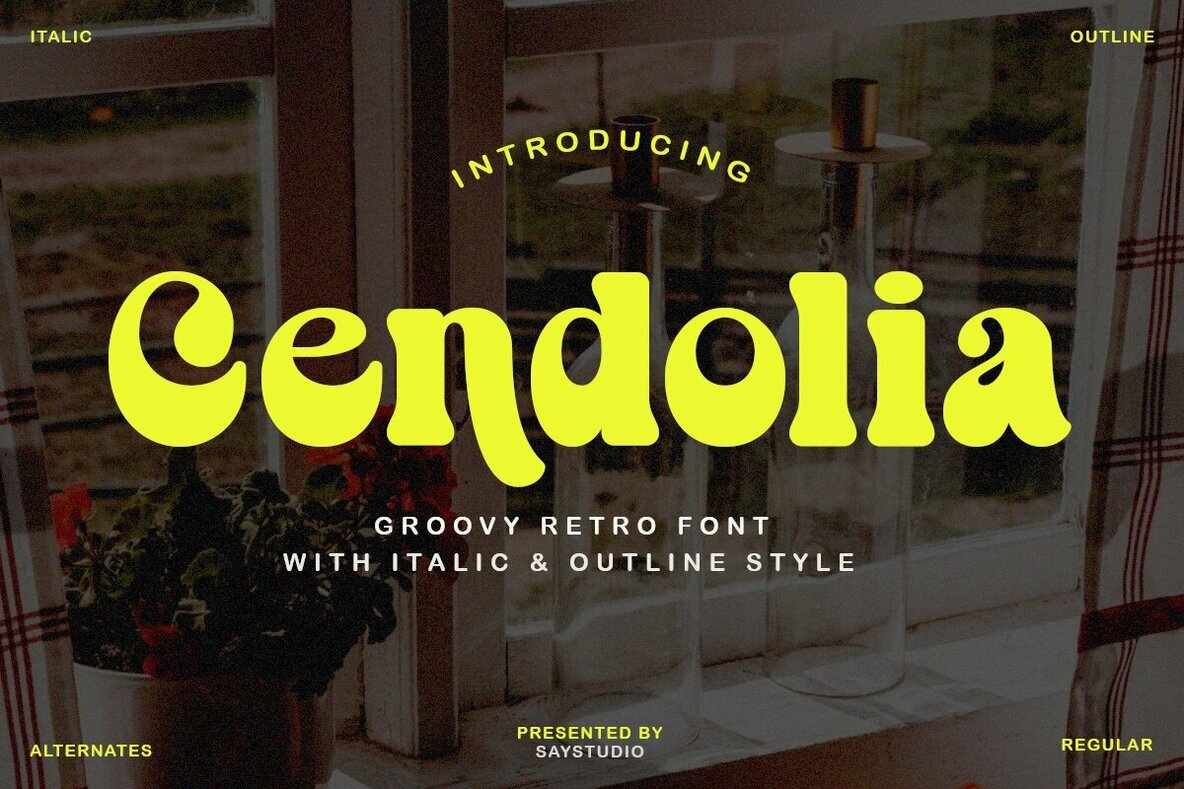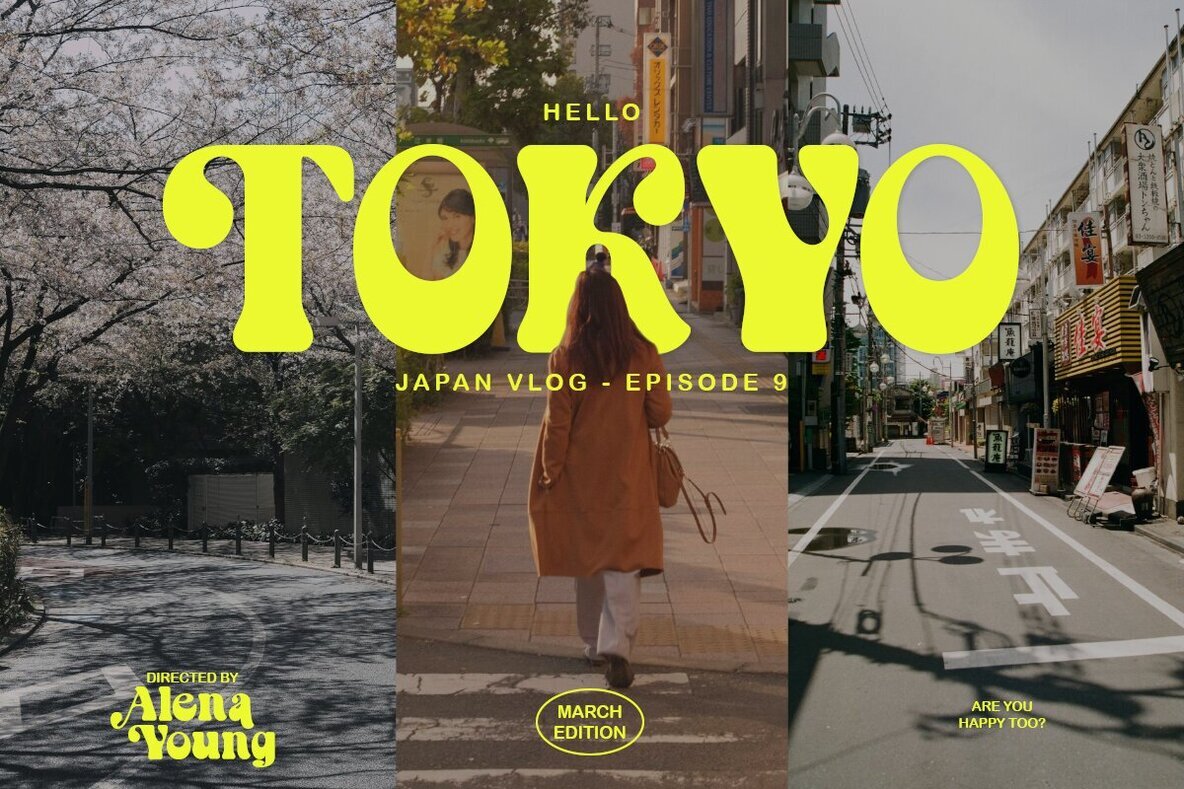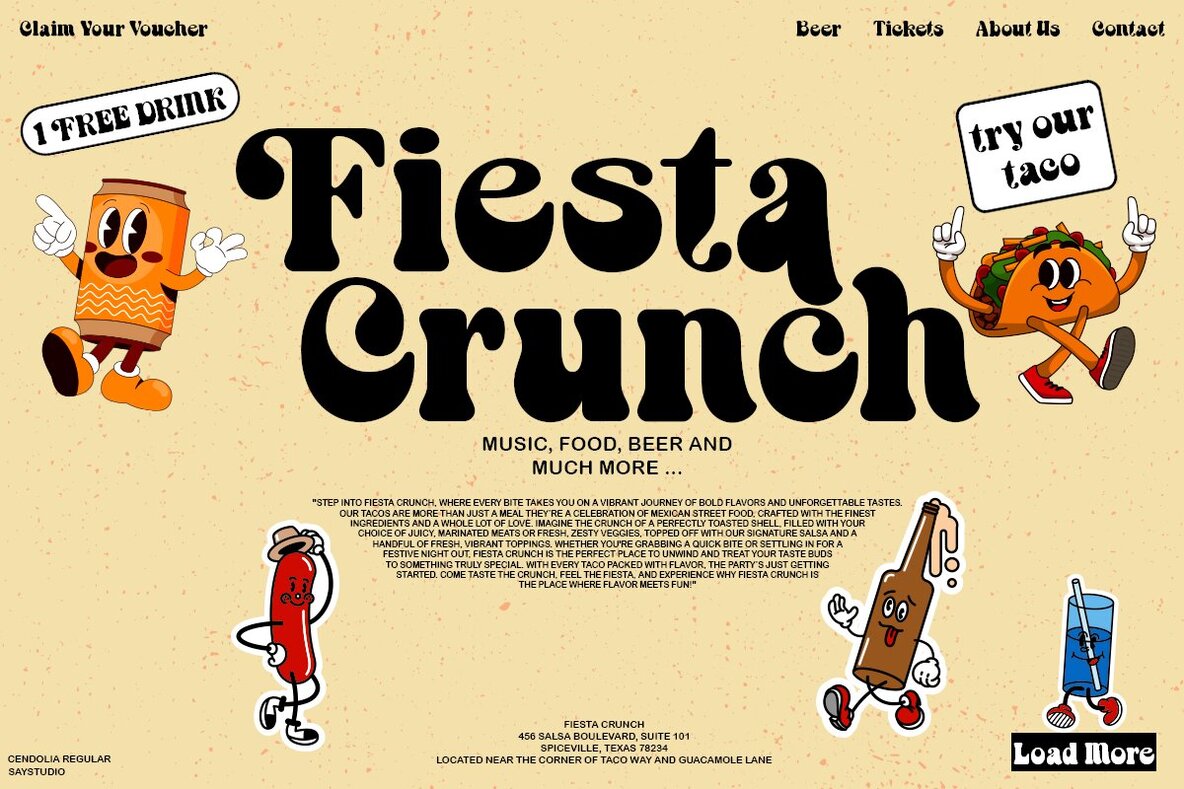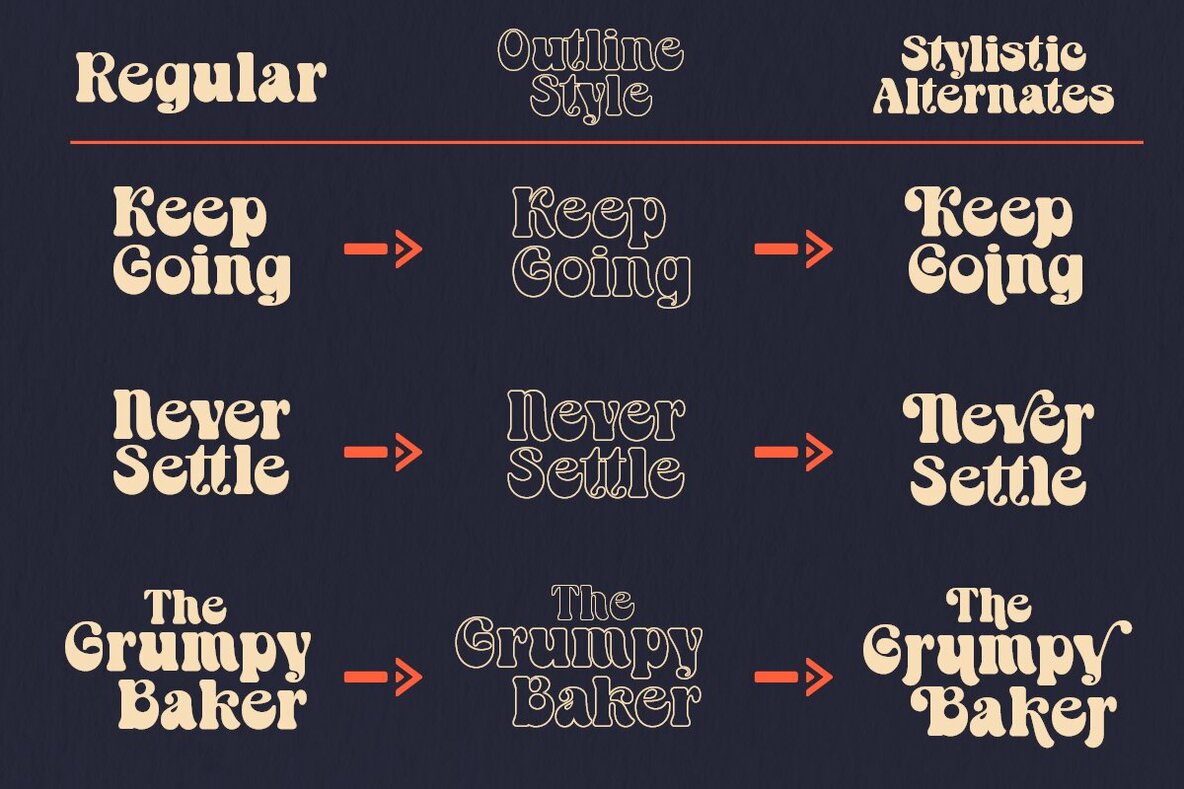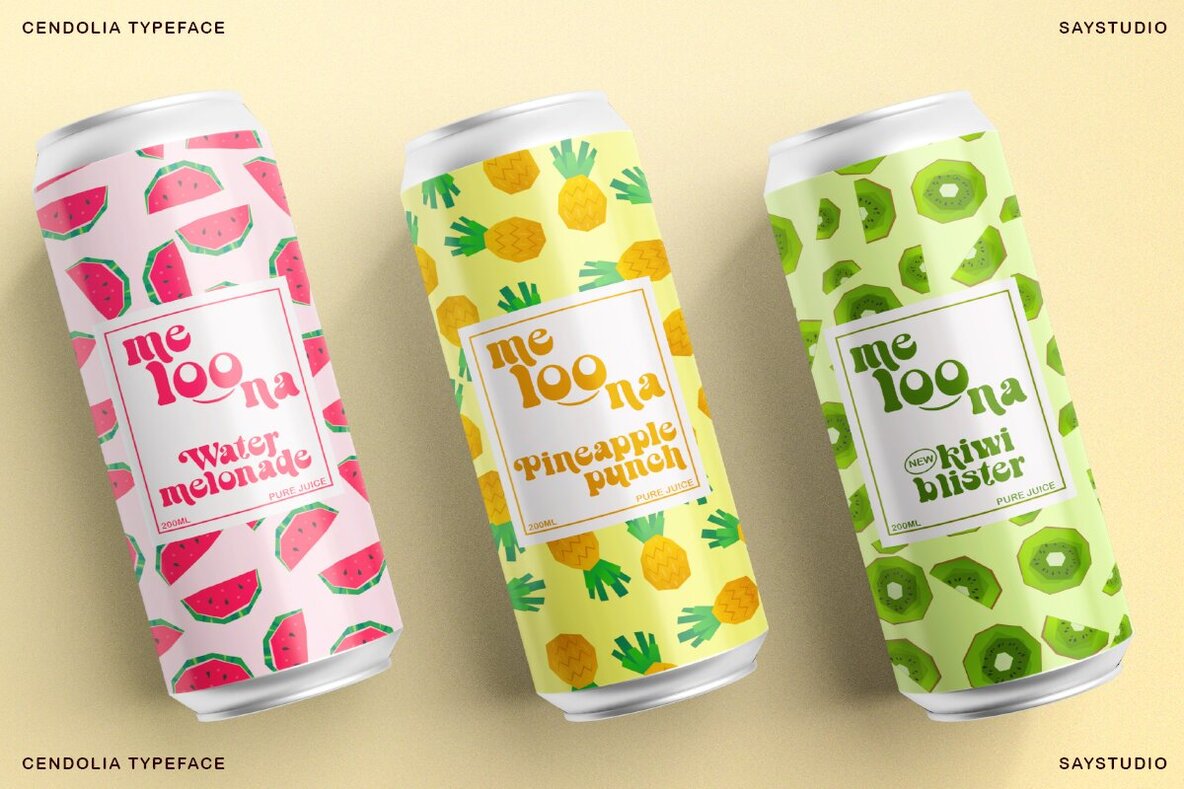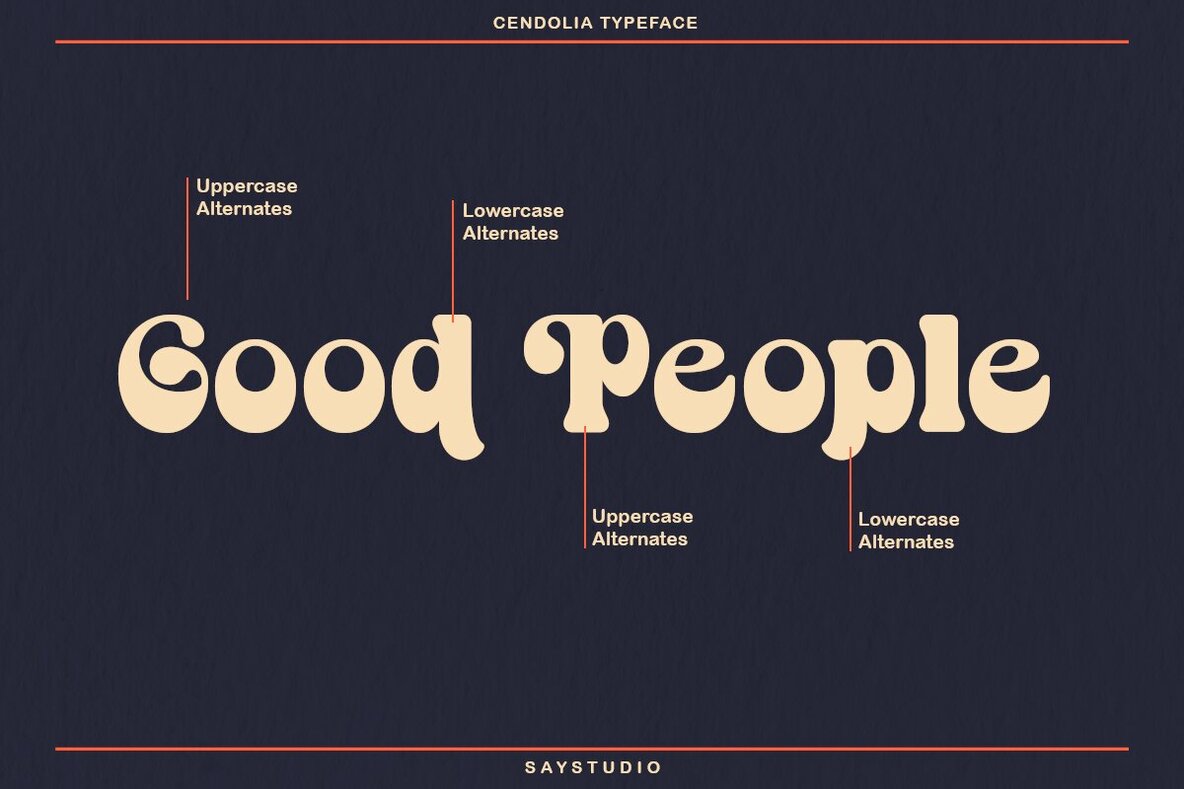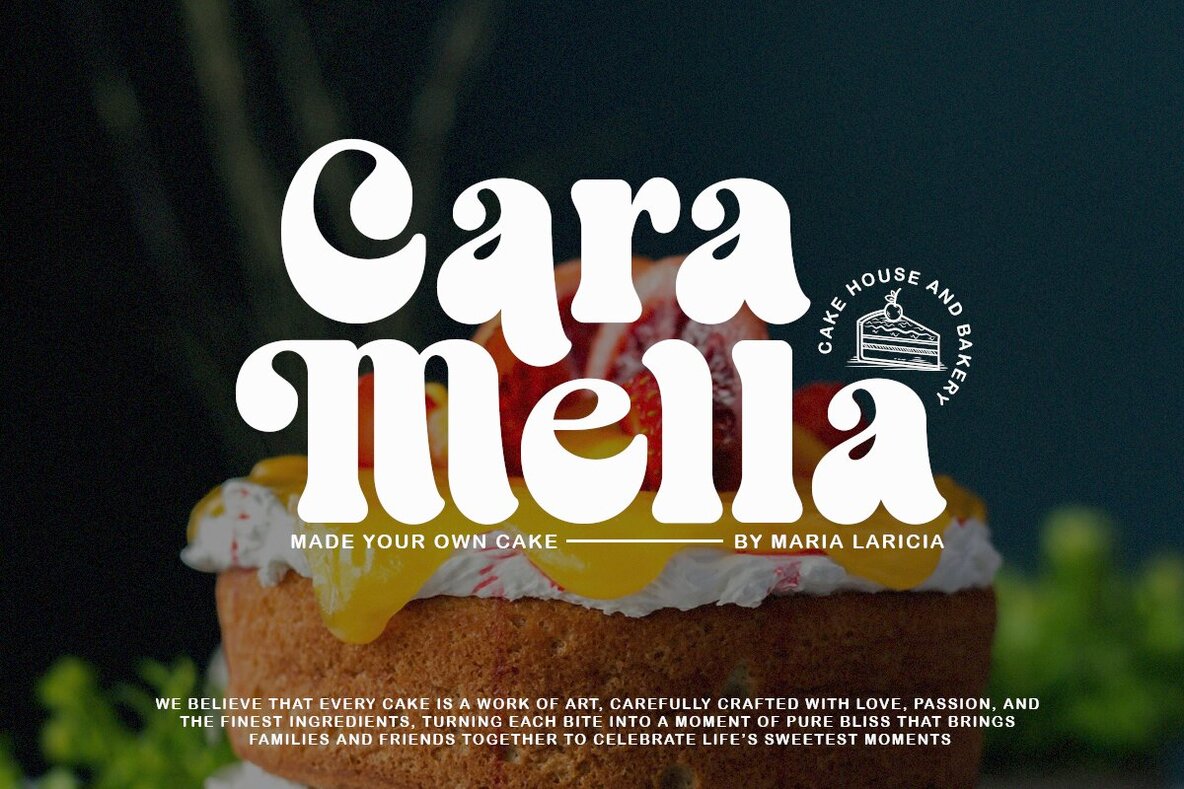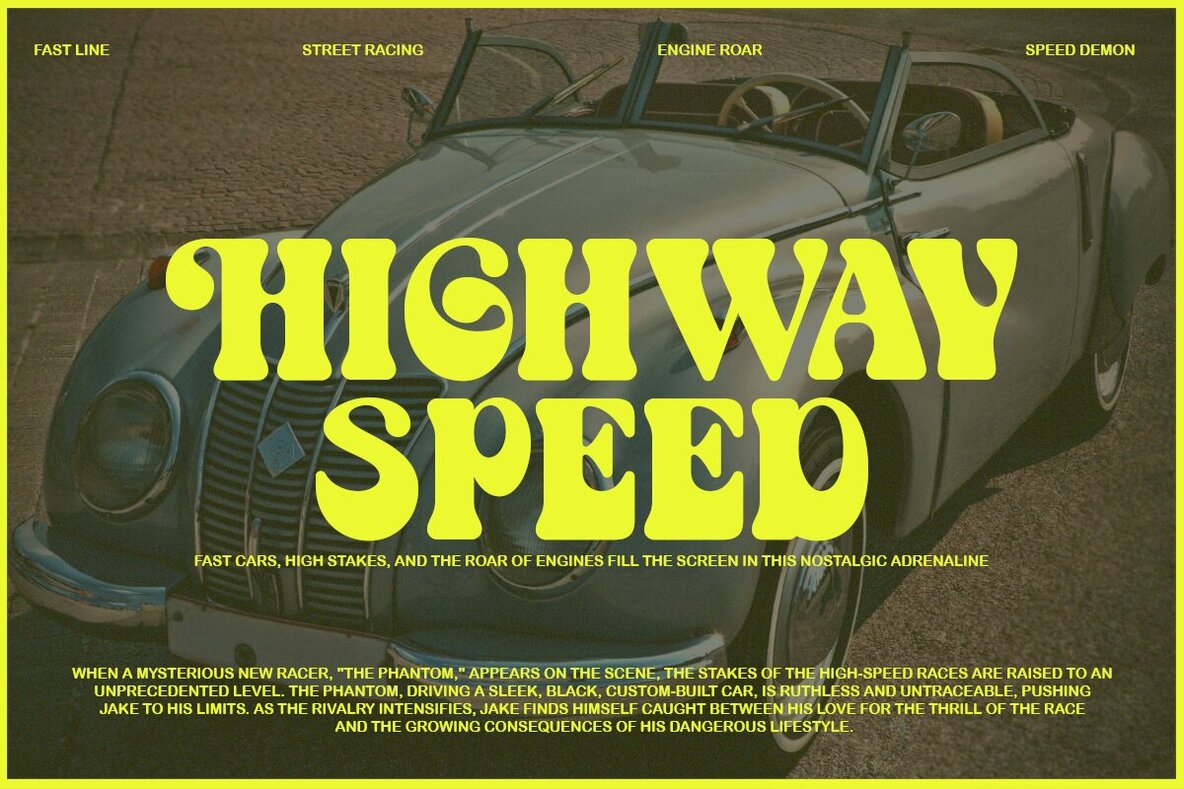
Cendolia Font
htmlCendolia: A Groovy Retro Display Font
Step into a world of nostalgic charm with Cendolia, a groovy retro font that exudes vintage appeal. Offering both an outline and an italic style, this versatile typeface effortlessly enhances any creative project. Cendolia comes with additional alternative character fonts, providing a plethora of options to take your designs to new heights. This display font is perfect for adding a special groovy touch to your ideas, whether for print or digital use.
Cendolia is ideal for a variety of applications, including:
- Stickers
- Packaging Design
- Cricut Projects
- Headlines
- Brand Identity
- T-shirt or Apparel Industry
- Posters
- Magazines
- Books
- YouTube
- Instagram
- Websites
Infuse your designs with a splash of retro flair using Cendolia to captivate and engage your audience.